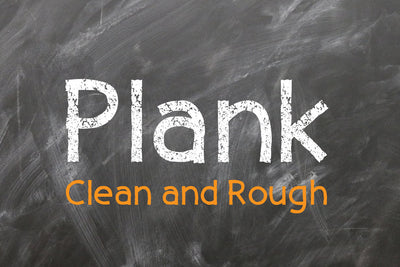
Plank (Clean - Rough)
Plank is fresh and unique typeface with simple, minimalistic, retro and vintage feel character set. Come with 2 styles, a clean and rough to create an option for the designs.